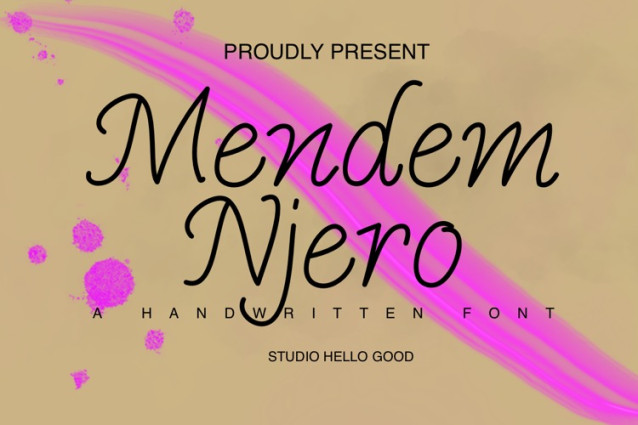
Mendem Njero Font is a simple and friendly handwritten font. Its natural and unique style makes it incredibly fitting to a large pool of designs. The only limit is your imagination!
Mendem Njero Font
| Designer Name: | Studio Hello Good |
| Classification: | Handwritten Fonts, Script Fonts |